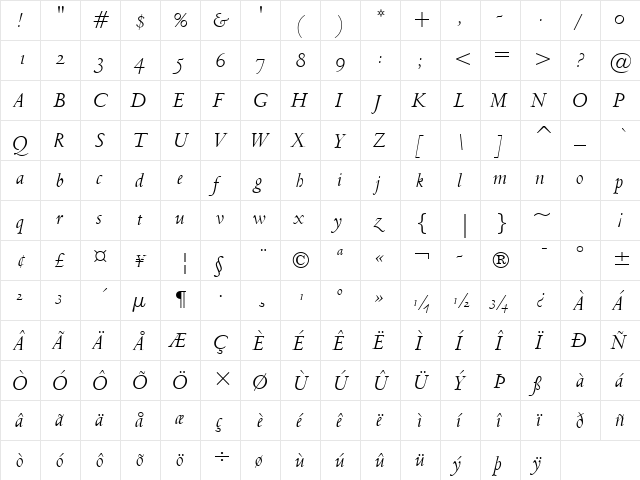
Venetian301 BT Italic Font Preview
Venetian301 BT Italic
Design Context for Venetian301 BT Typeface
Venetian301 BT takes a measured approach to typography — its balanced proportions and neutral character make it a reliable workhorse for both digital and print work. Its italic angle brings a sense of urgency and motion to the letterforms.